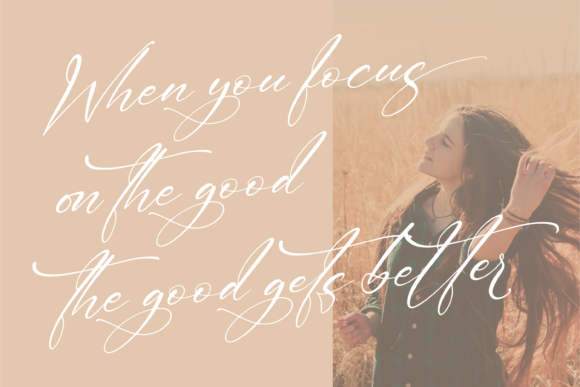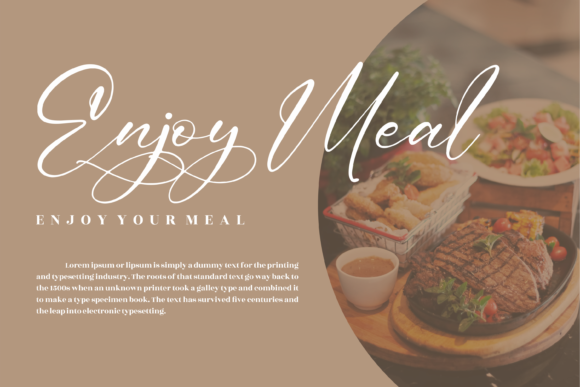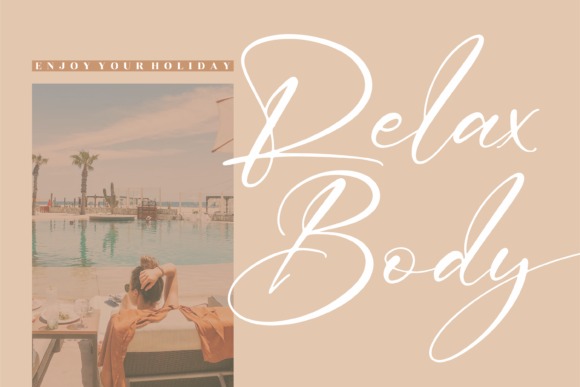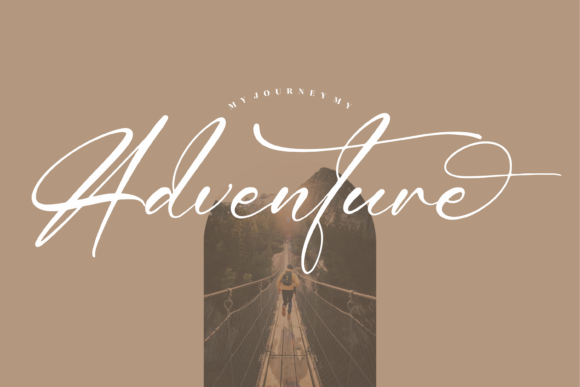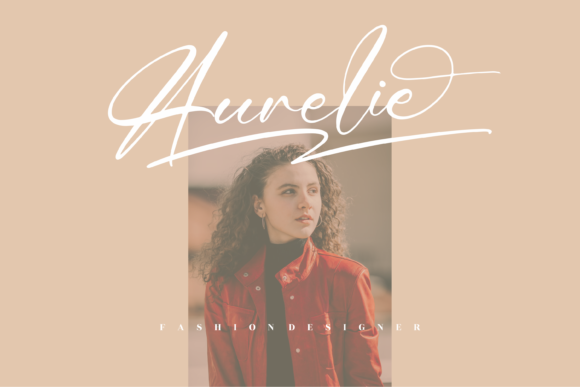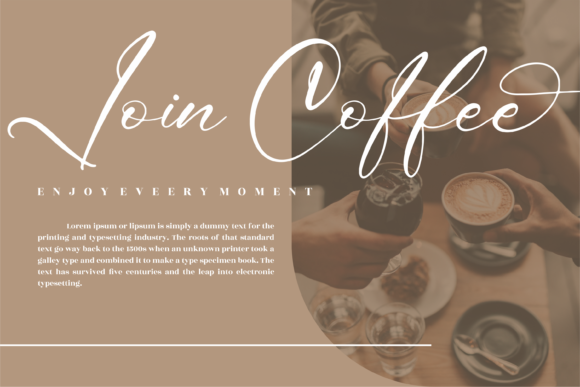
Introducing Amsterdam Signature Font: Elevate Your Designs with Elegance
Are you a designer or crafter looking for a premium font to elevate your projects? Look no further than Amsterdam Signature Font. This stunning script font is perfect for adding a touch of elegance and sophistication to any design. In this article, we’ll explore the features and benefits of Amsterdam Signature Font, and how it can be used to take your designs to the next level.
What is Amsterdam Signature Font?
Amsterdam Signature Font is a premium script font designed to add a touch of luxury and sophistication to any project. Its elegant and flowing lines make it perfect for a wide range of applications, from logos and branding projects to homeware designs, product packaging, and more.
Key Features of Amsterdam Signature Font
- Unique and Elegant Design: Amsterdam Signature Font features a unique and elegant design that is sure to make your projects stand out.
- Multilingual Support: Amsterdam Signature Font supports multiple languages, making it perfect for designers and crafters working with international clients.
Uses for Amsterdam Signature Font
Amsterdam Signature Font is a versatile font that can be used for a wide range of projects, including:
- Logos and Branding Projects: Create a professional and elegant logo for your business or brand.
- Homeware Designs: Add a touch of sophistication to your homeware designs, such as stationery, gift tags, and more.
- Product Packaging: Elevate your product packaging with a beautiful and elegant font.
- Mugs and Drinkware: Create stunning designs for mugs, water bottles, and other drinkware.
- Quotes and Posters: Add a touch of elegance to your quotes and posters.
- Shopping Bags and T-Shirts: Create eye-catching designs for shopping bags and t-shirts.
- Book Covers and Name Cards: Design beautiful book covers and name cards with Amsterdam Signature Font.
- Invitation Cards and Greeting Cards: Create stunning invitation cards and greeting cards for special occasions.
- Labels and Photography: Use Amsterdam Signature Font to add a touch of elegance to your labels and photography.
- Watermark and Special Events: Create a beautiful watermark for your photos and designs, and use the font for special events such as weddings and parties.
Why Choose Amsterdam Signature Font?
So why choose Amsterdam Signature Font for your projects? Here are just a few reasons:
- Unique and Exclusive Design: Amsterdam Signature Font features a unique and exclusive design that will make your projects stand out.
- High-Quality and Versatile: The font is high-quality and versatile, making it perfect for a wide range of projects.
- Multilingual Support: The font supports multiple languages, making it perfect for designers and crafters working with international clients.
In conclusion, Amsterdam Signature Font is a premium script font that is perfect for designers and crafters looking to add a touch of elegance and sophistication to their projects. With its unique and exclusive design, high-quality vector file, and multilingual support, it’s the perfect choice for a wide range of applications. Whether you’re working on logos and branding projects, homeware designs, product packaging, or more, Amsterdam Signature Font is sure to elevate your designs to the next level.